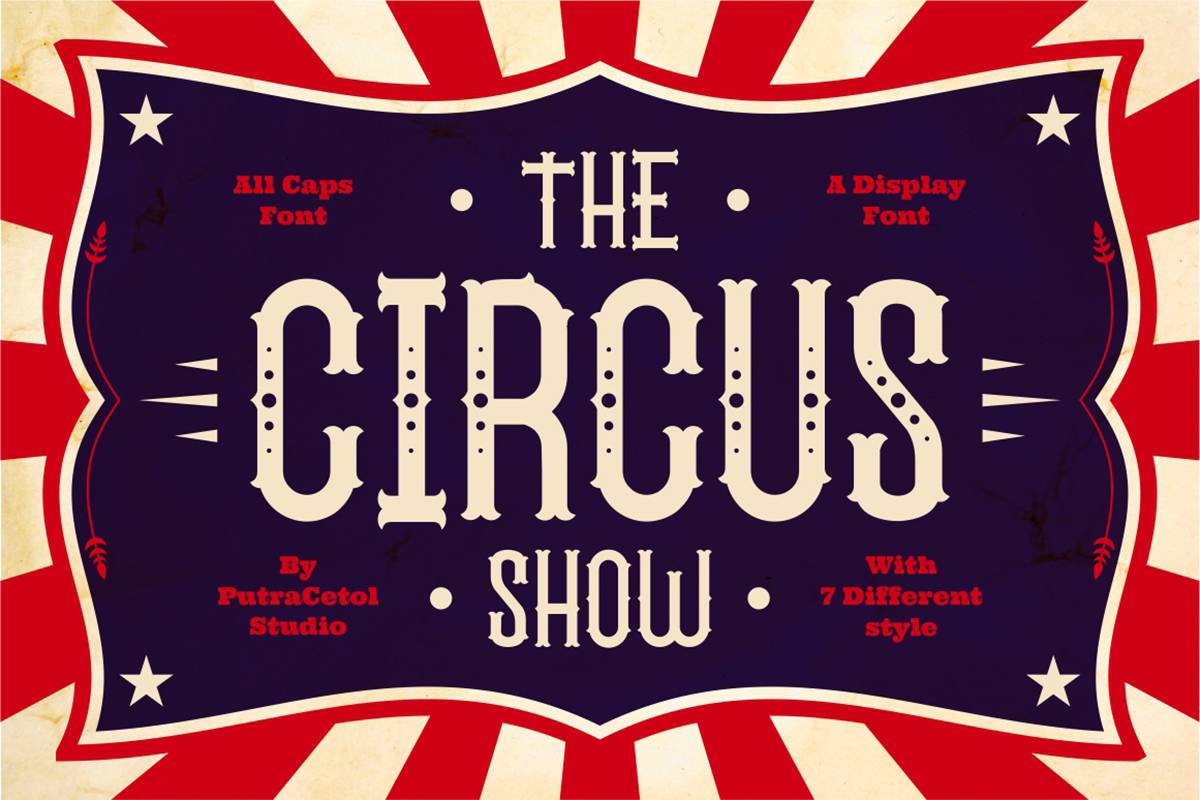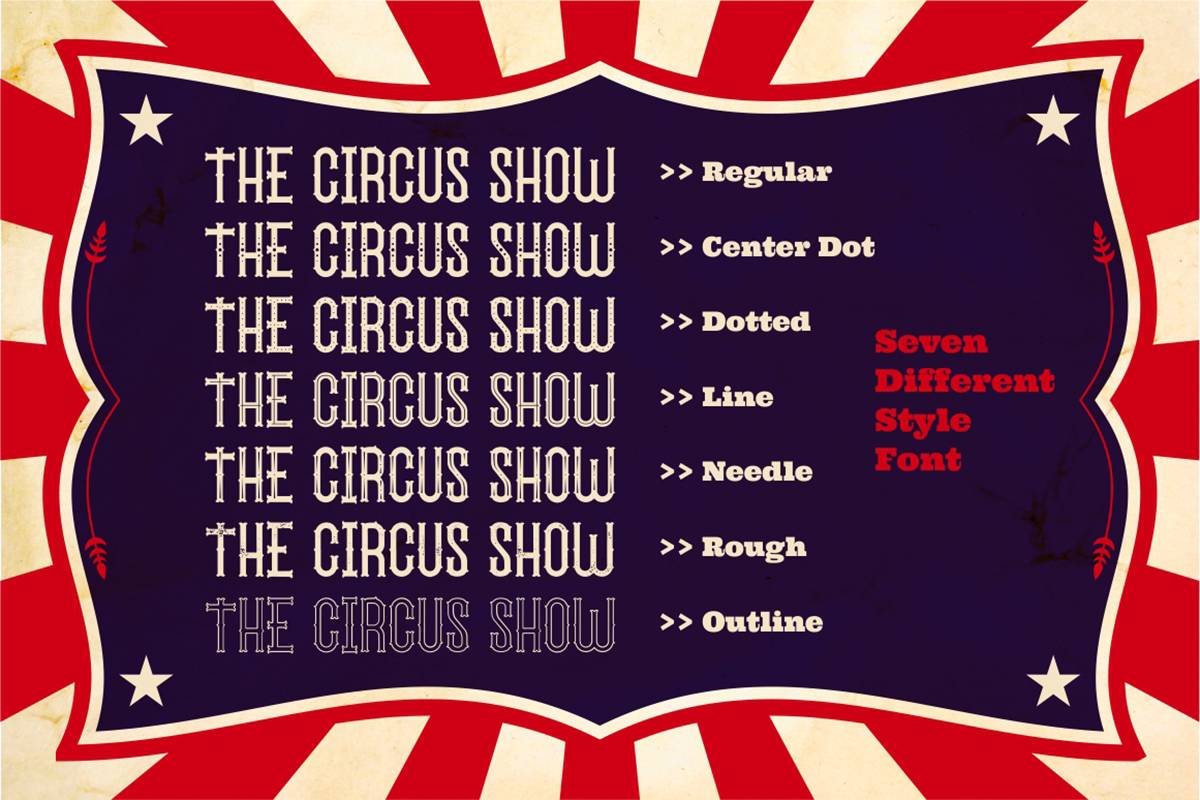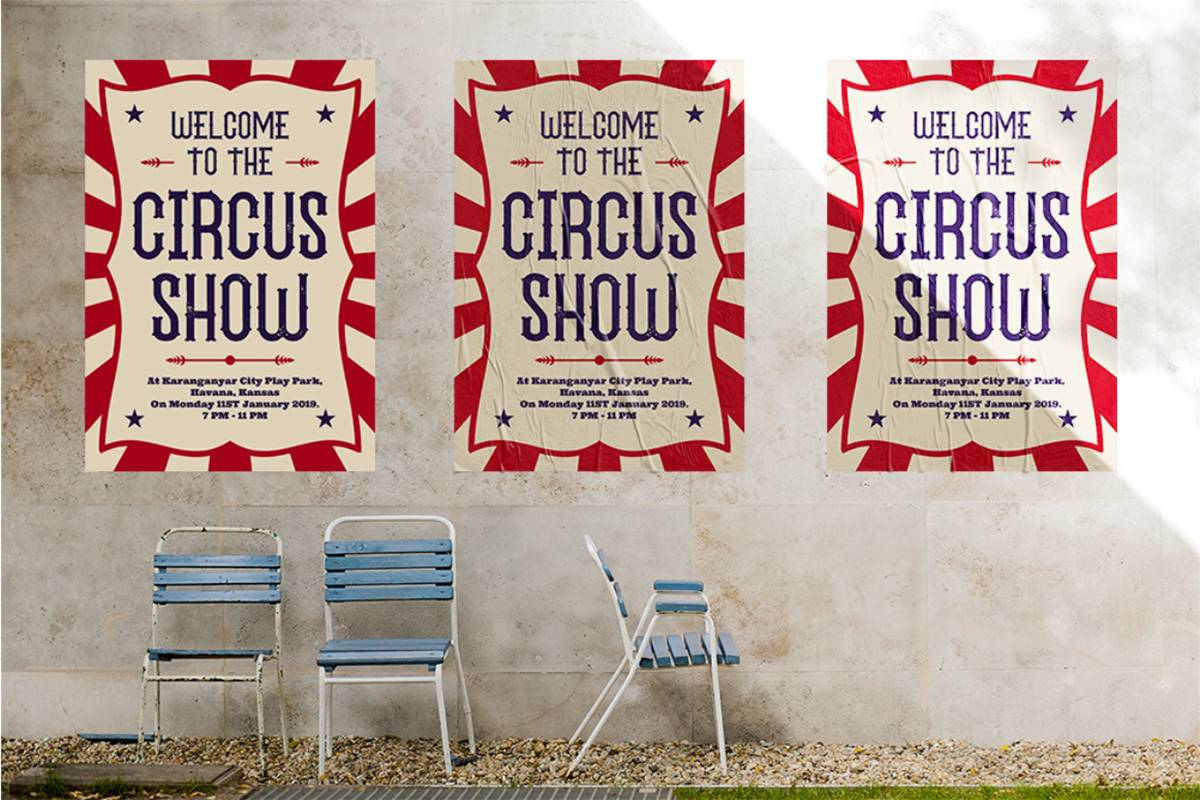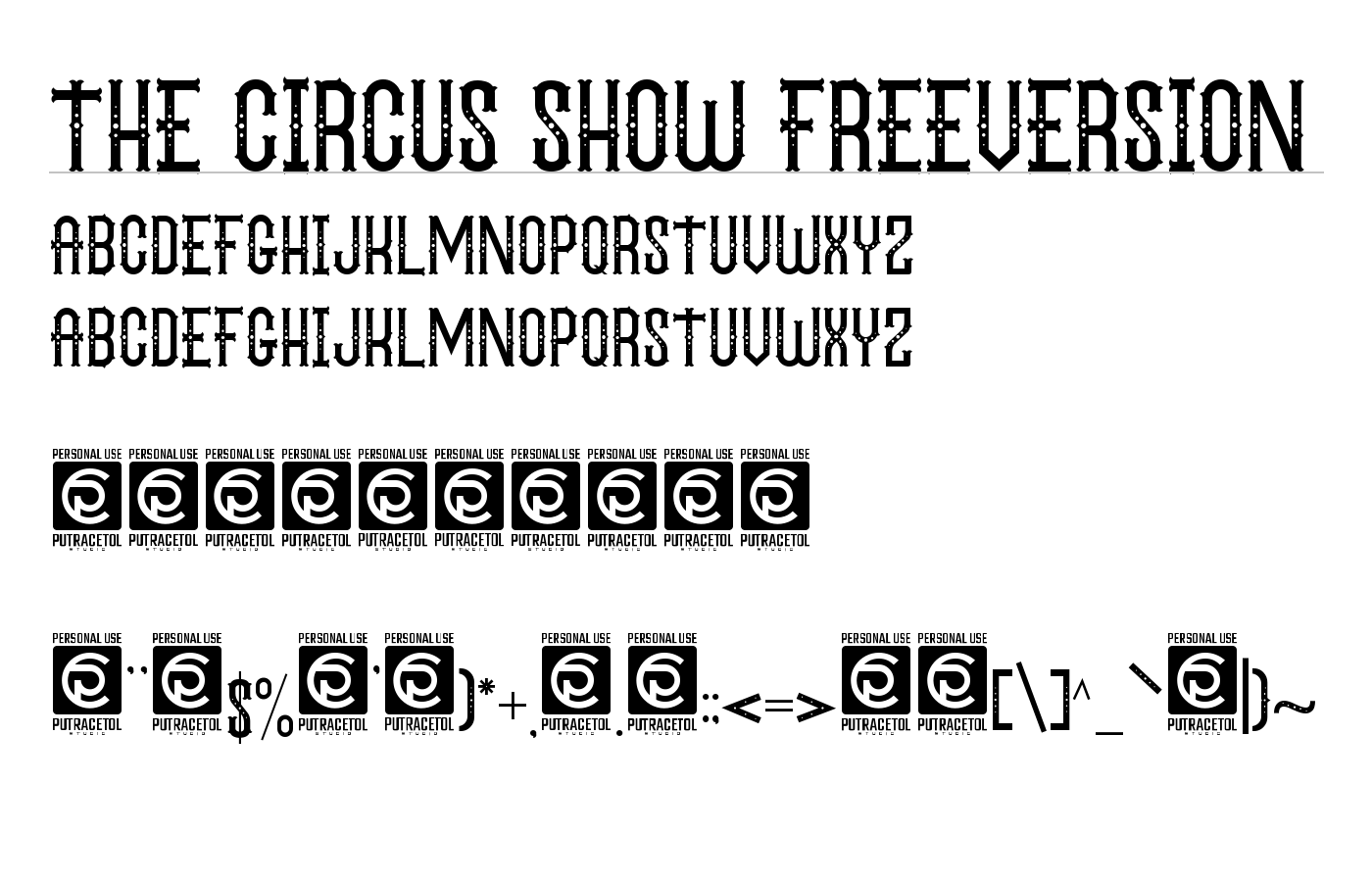
The Circus Show is a bold, condensed serif font with a vintage carnival vibe, featuring high contrast strokes and decorative star-like elements that bring an ornamental, playful touch. Its tall, narrow letterforms and distinctive serif details make it perfect for eye-catching headlines, posters, and branding that wants to evoke a nostalgic, festive atmosphere. This font works especially well for circus-themed designs, retro signage, and any project seeking a lively yet classic character.
The Circus Show Font